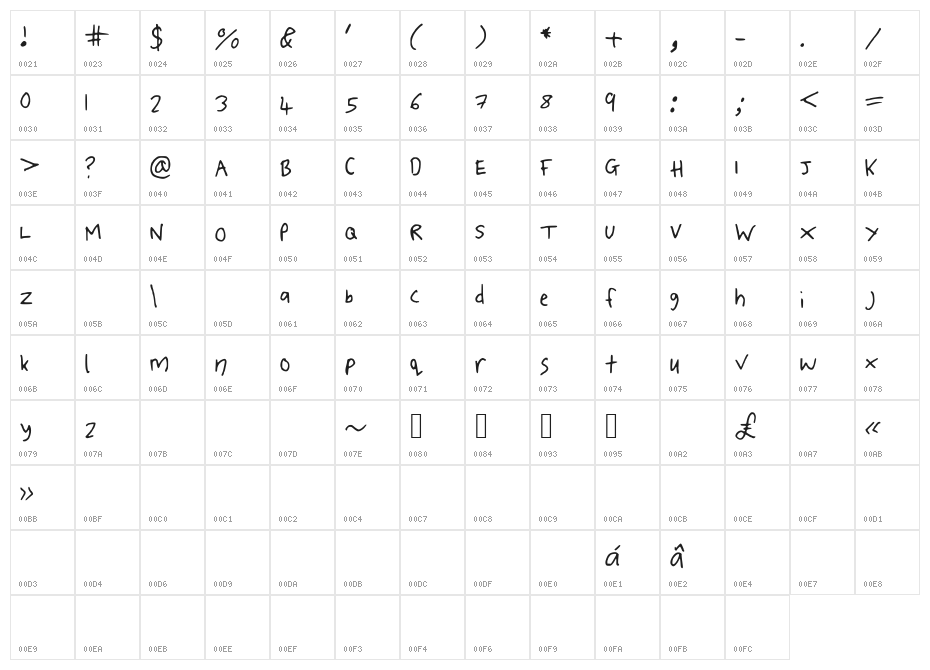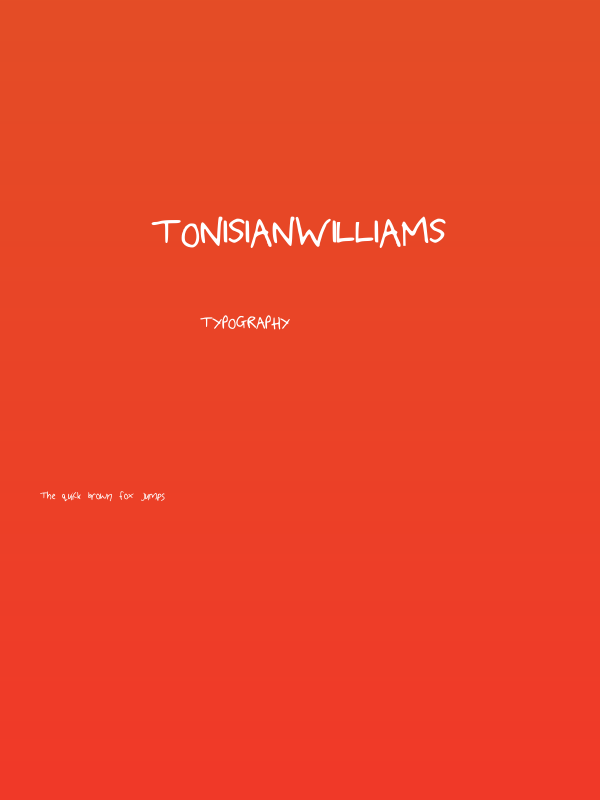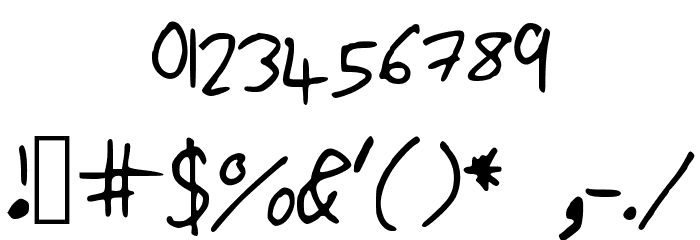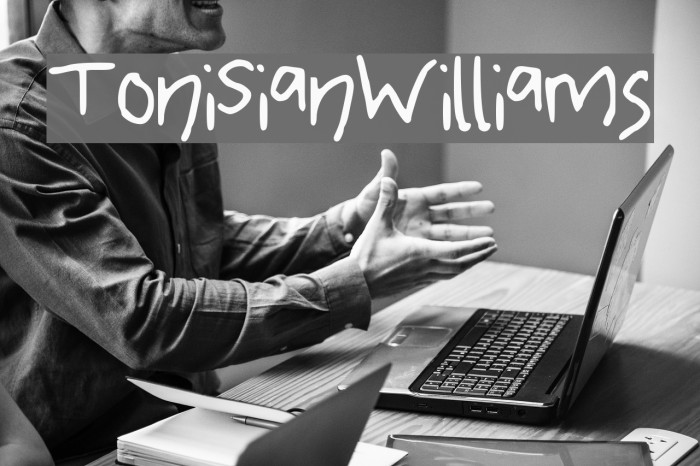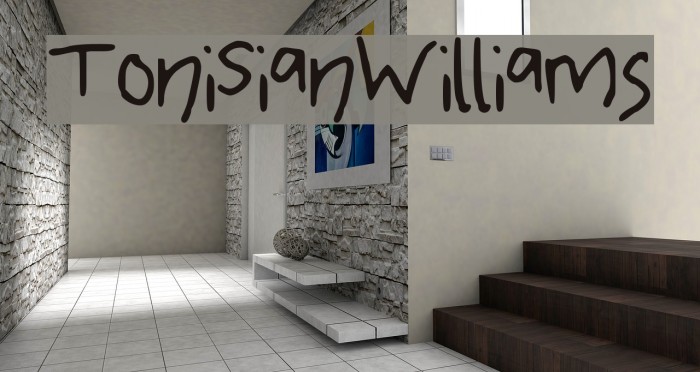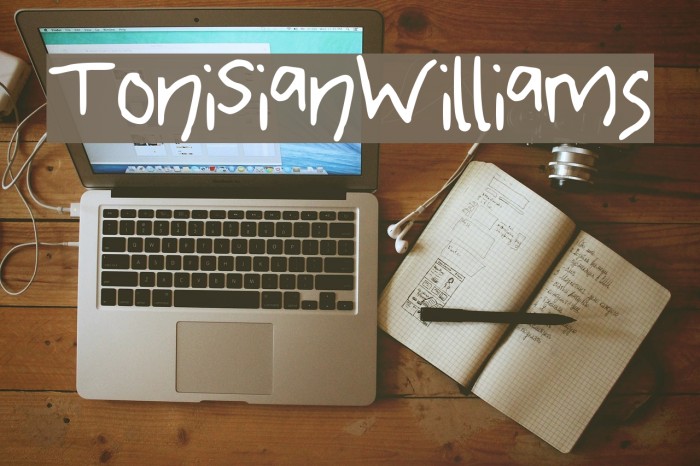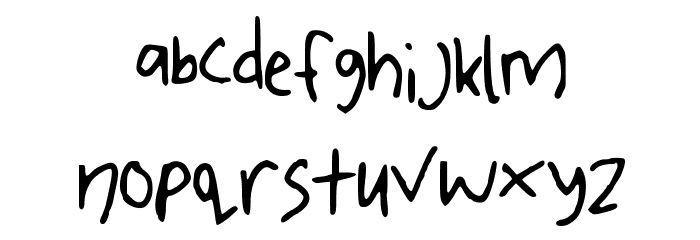
ToniSianWilliams Font
ToniSianWilliams Description
This font features a playful and casual handwritten style, characterized by its uneven strokes and organic flow. The letters have a natural, unrefined appearance, giving them a personal and approachable feel. The uppercase and lowercase letters maintain a consistent style, with rounded edges and varying stroke thicknesses that add to the font's charm. The numerals and special characters follow the same informal aesthetic, making the font versatile for creative projects. Its unique personality makes it suitable for designs that require a touch of whimsy and individuality.
TONISIANWILLIAMS UPPERCASE
TONISIANWILLIAMS LOWERCASE
TONISIANWILLIAMS OTHER CHARS
| Proposed Projects | Ideal for greeting cards, personal branding, children's books, and casual invitations. |